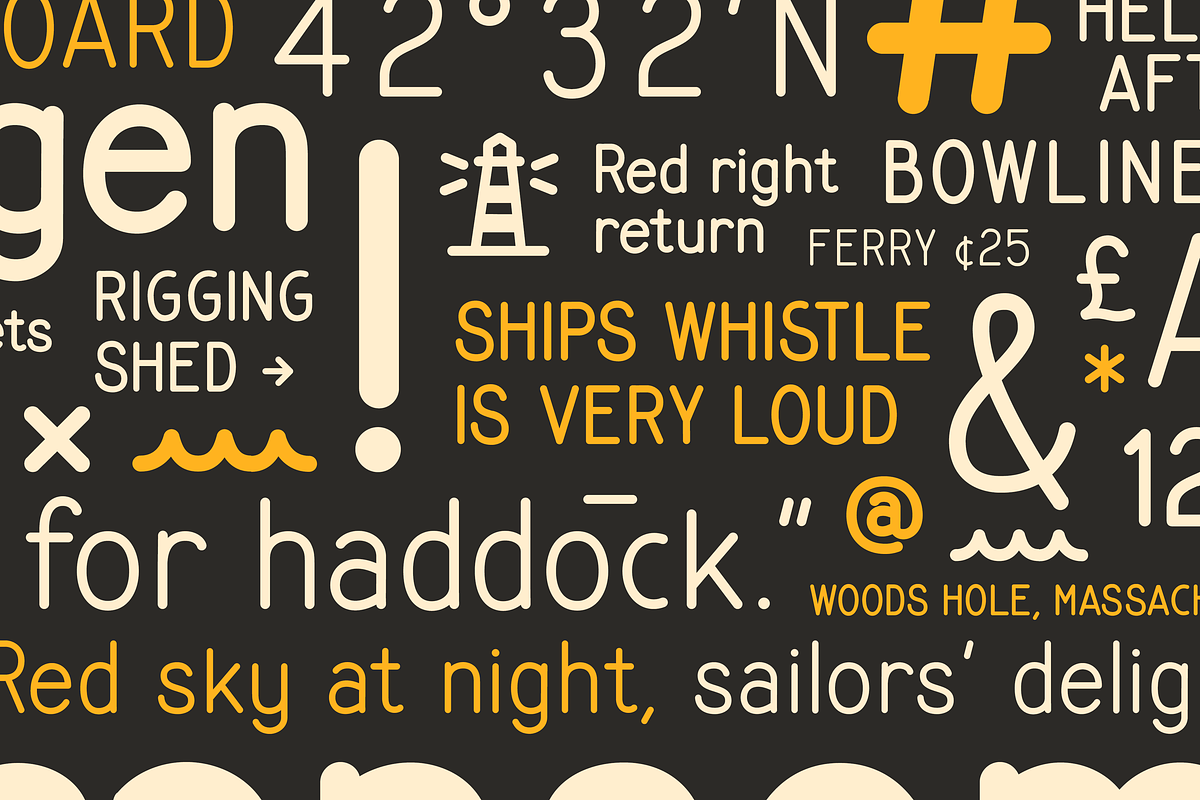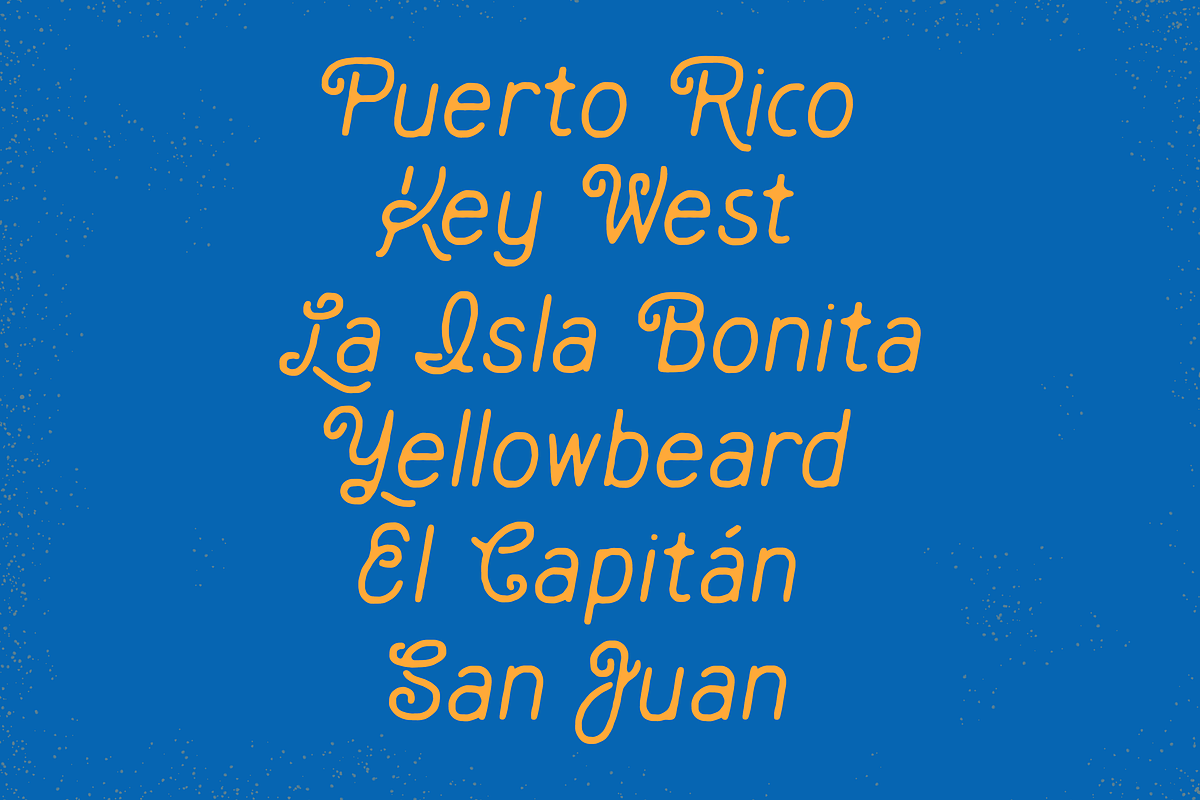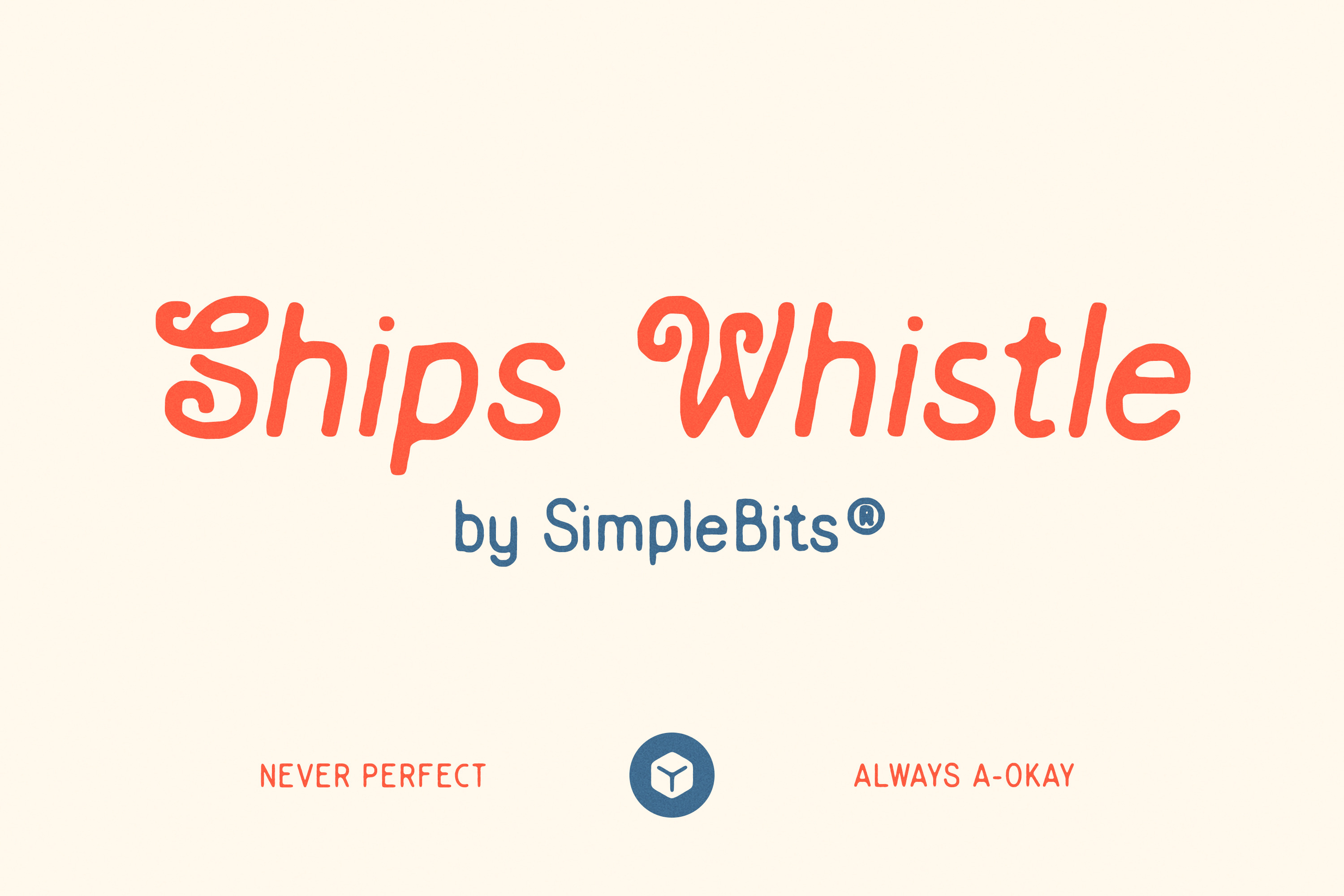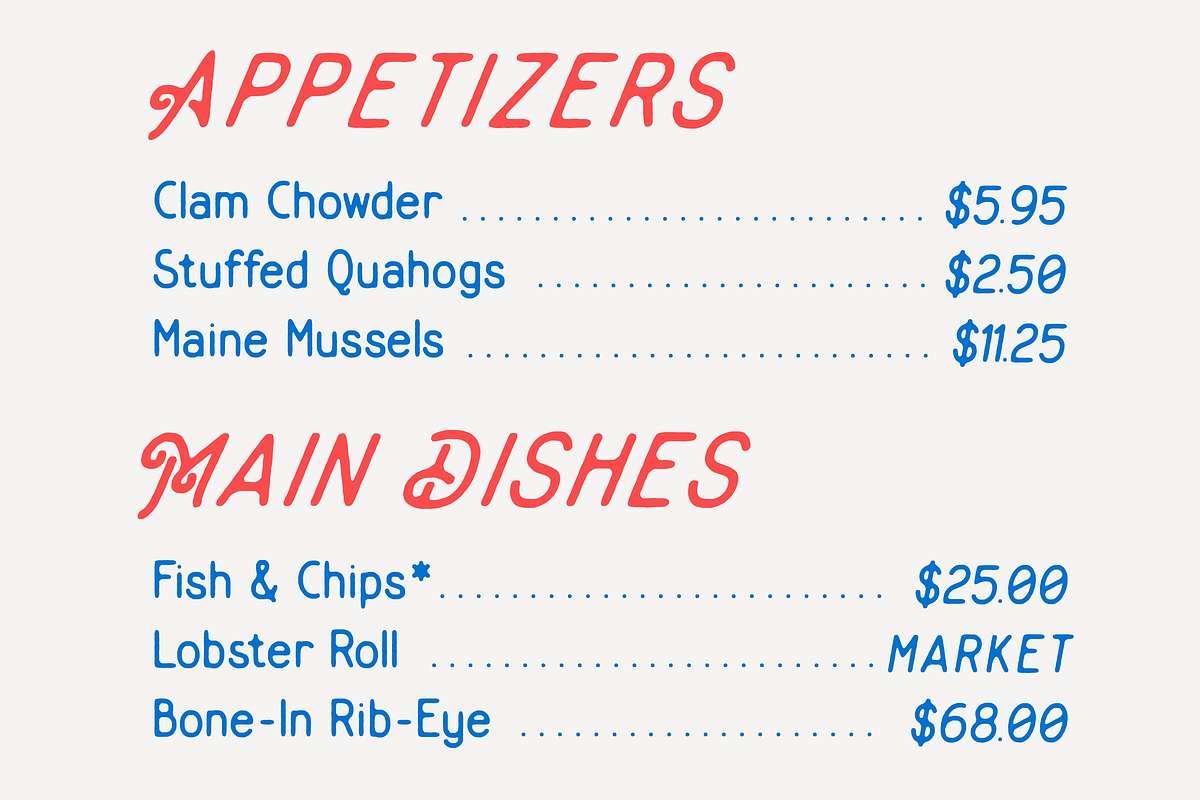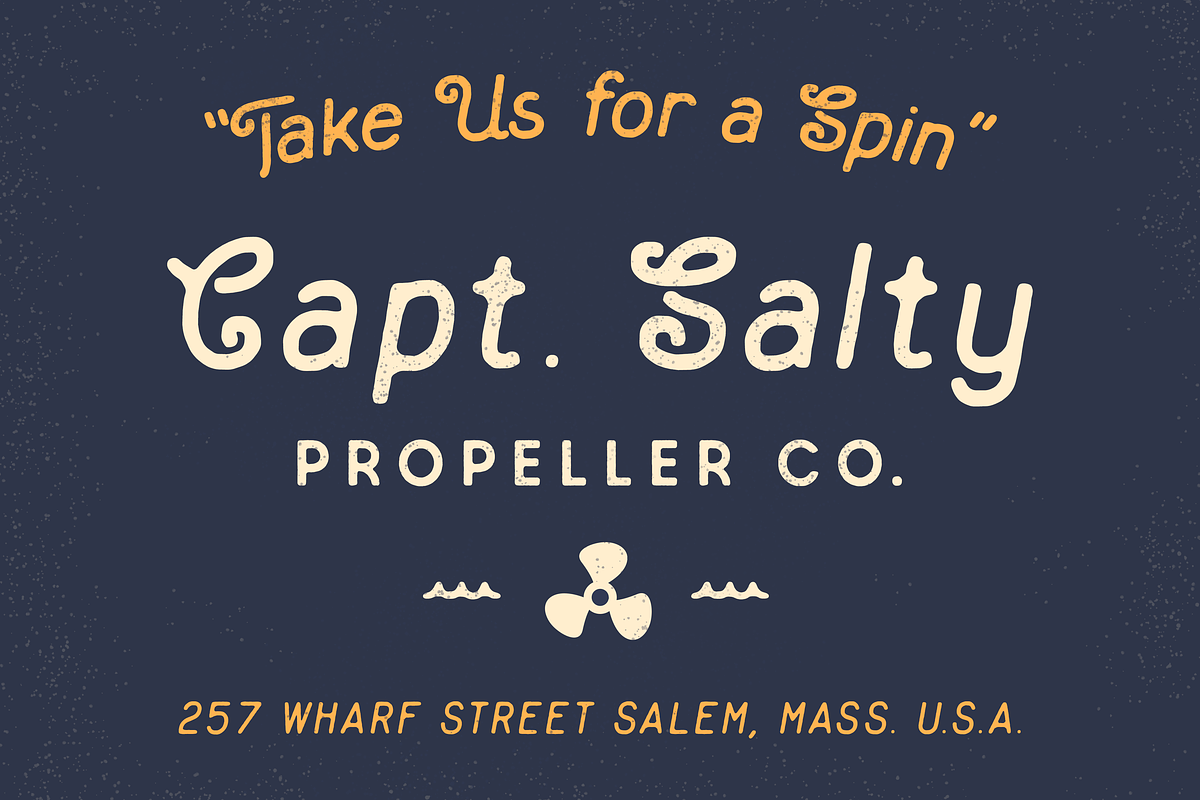
Ships Whistle — Monoline font
Inspired by lettering I found on the ferry from Woods Hole to Martha's Vineyard here in Massachusetts, Ships Whistle is a monoline, display sans-serif in eight styles: Clean and Rough versions of Regular, Italic, Bold, and Bold Italic.
Great for signage and way-finding and maritime vibes. Includes upper and lowercase, numbers, punctuation, diacritics, etc.—plus bonus alternate character glyphs and icons, as well as a signature ST/st ligature that may have been a printing error on the original sign. Also included are alternate swashy caps in the Italic styles.